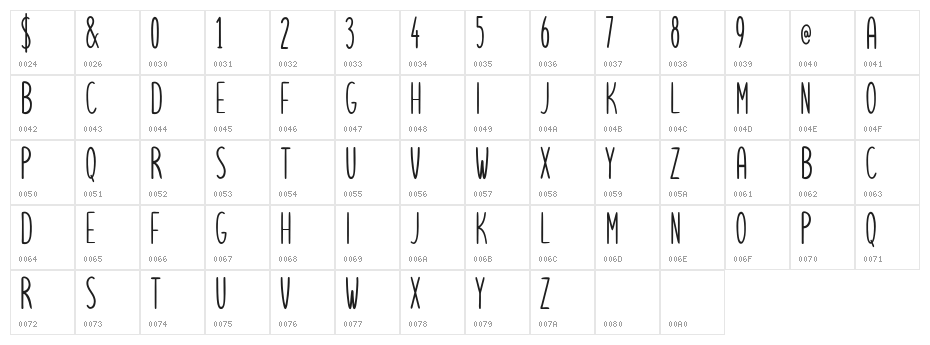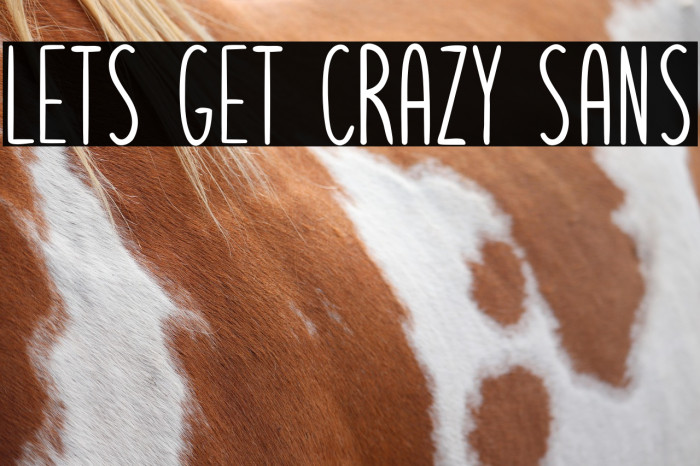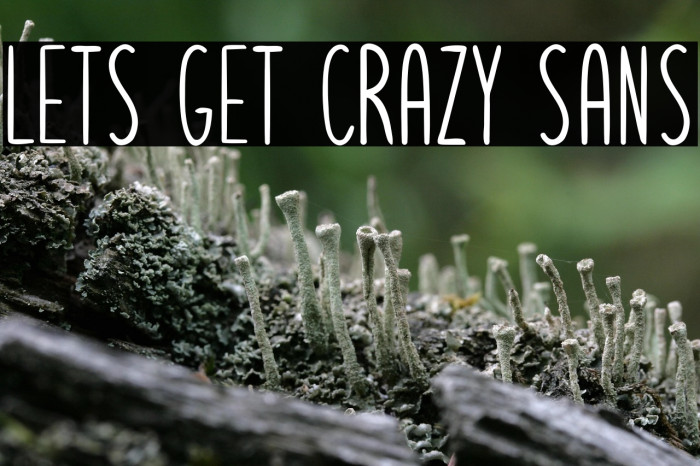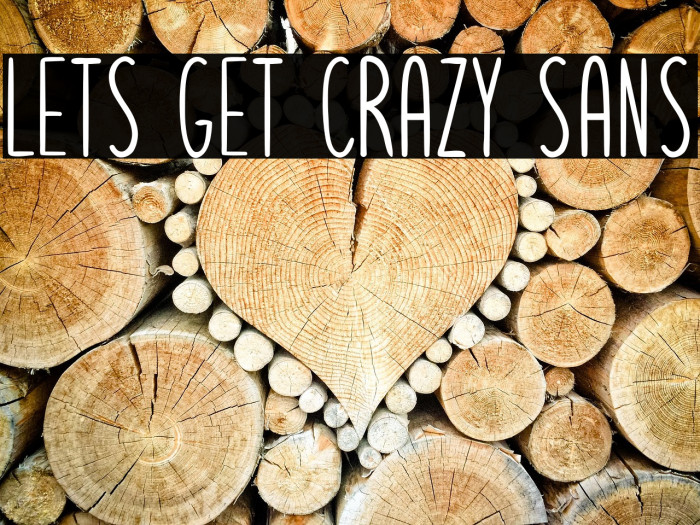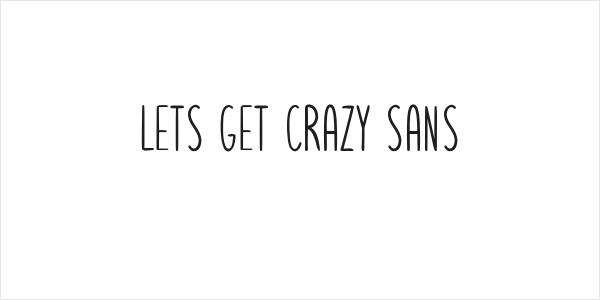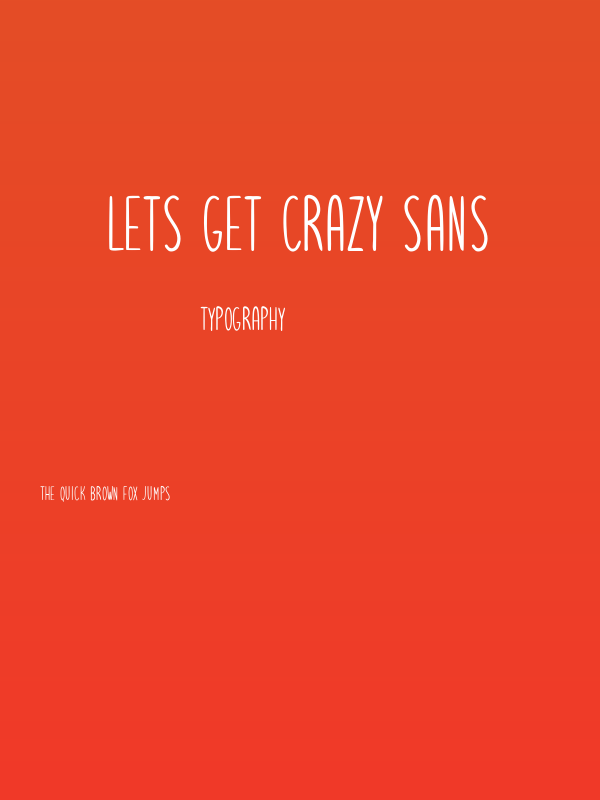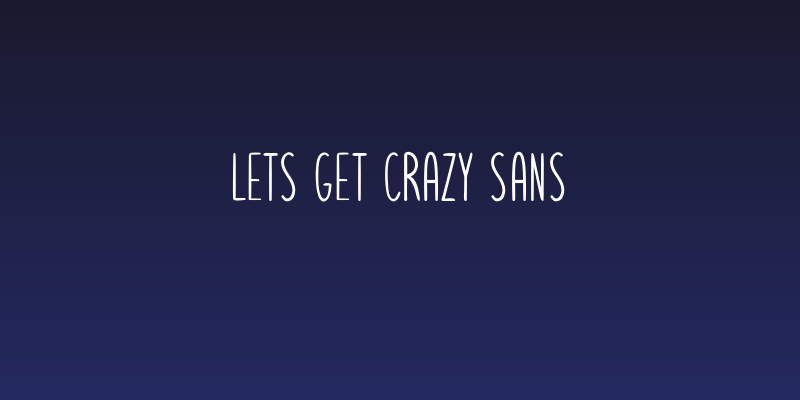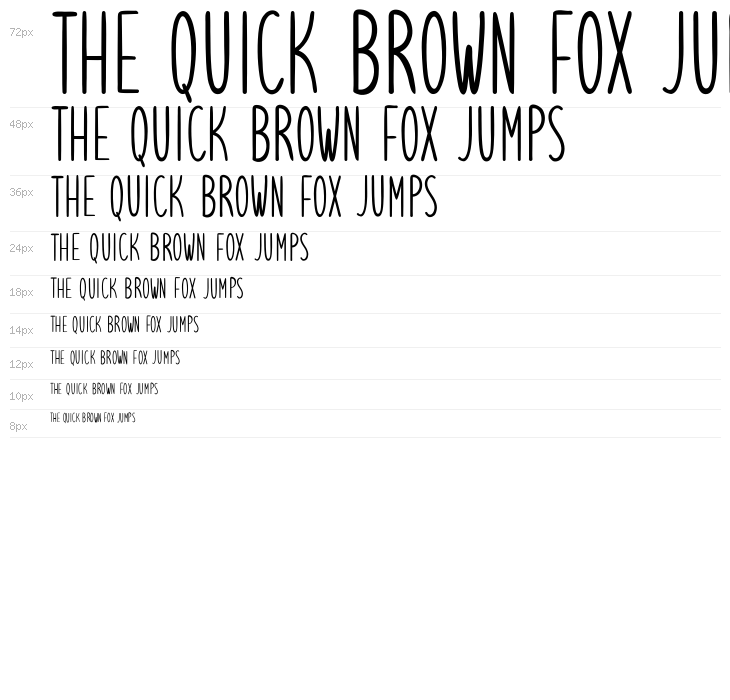
Lets get crazy sans Font
Lets get crazy sans Description
This font features a playful and quirky design with tall, narrow characters that have a hand-drawn feel. The letters are slightly irregular, adding to its whimsical charm. The strokes are consistent in width, giving it a clean and modern appearance. The font maintains a casual and friendly vibe, making it suitable for creative and informal projects. Its unique style is eye-catching and can add a touch of personality to any design.
| Proposed Projects | Ideal for children's books, greeting cards, playful branding, and creative posters. |